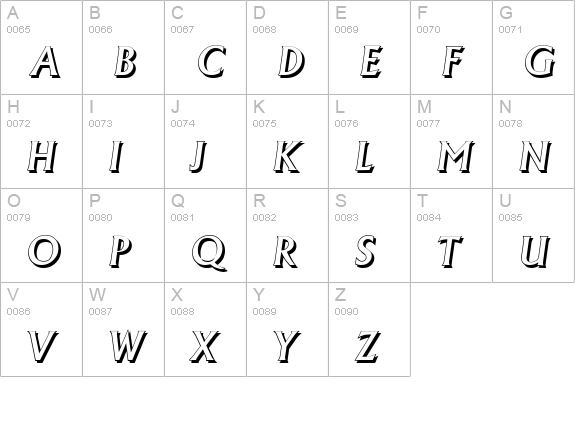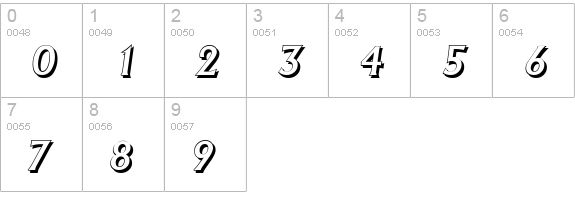
AdelonShadow-Medium-Italic is a balanced, medium-weight, italic variant in the AdelonShadow typeface family \xE2\x80\x94 well suited to sub-headlines, navigation, and balanced editorial work.
Introducing the exquisite AdelonShadow-Medium-Italic font, a sophisticated and stylish typeface designed to elevate your projects with a touch of elegance and charm. This font boasts a perfect balance of modernity and classic appeal, making it ideal for a wide range of design applications. The AdelonShadow-Medium-Italic font features a unique italic style that exudes a sense of sophistication and refinement, perfect for adding a touch of flair to your designs. Its medium weight strikes the right balance between boldness and subtlety, making it versatile for various design projects. What's even better is that the AdelonShadow-Medium-Italic font is available for free download at FontsMarket.com. Yes, you read that right - this premium quality font can be yours at no cost, allowing you to enhance your designs without breaking the bank. Don't miss out on this opportunity to elevate your projects with the AdelonShadow-Medium-Italic font today!